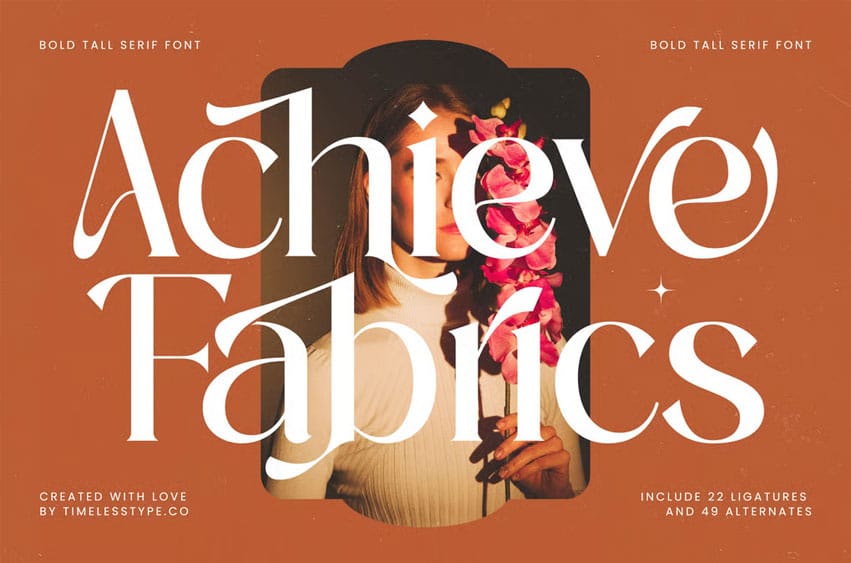
Achieve Fabrics Font is a bold, tall serif that blends modern confidence with vintage-inspired curves. High-contrast strokes, elegant terminals, and refined proportions make it perfect for statement logos, editorials, packaging, posters, and invitations.
With 22 ligatures and 49 stylistic alternates, you can build custom wordmarks and expressive headlines in seconds while keeping a clean, professional finish across print and web.